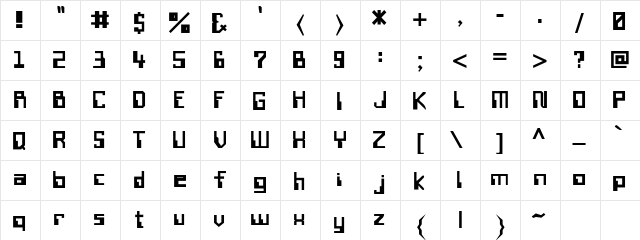
WireTransferSSK Bold
Design Context for WireTransferSSK Typeface
WireTransferSSK is a composed and adaptable typeface that performs quietly and consistently across a wide range of design contexts. The heavy weight commands attention and anchors typographic hierarchies.